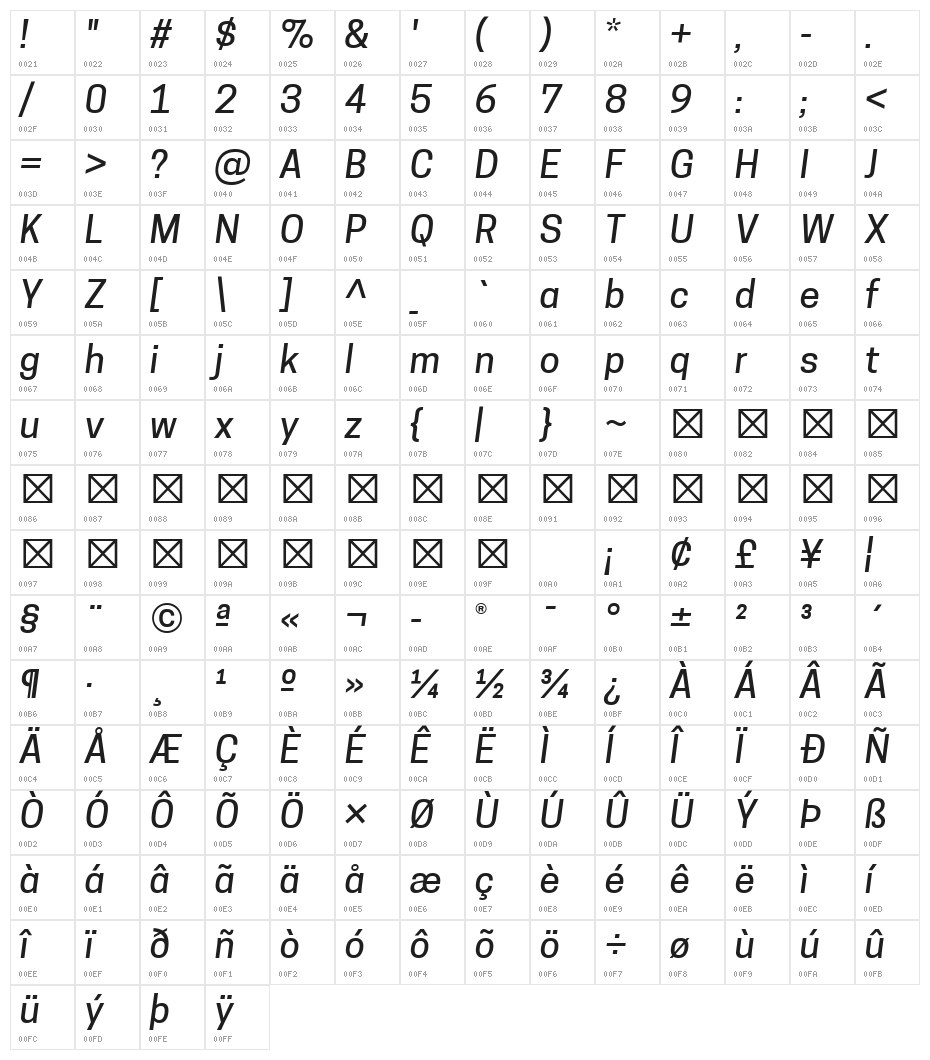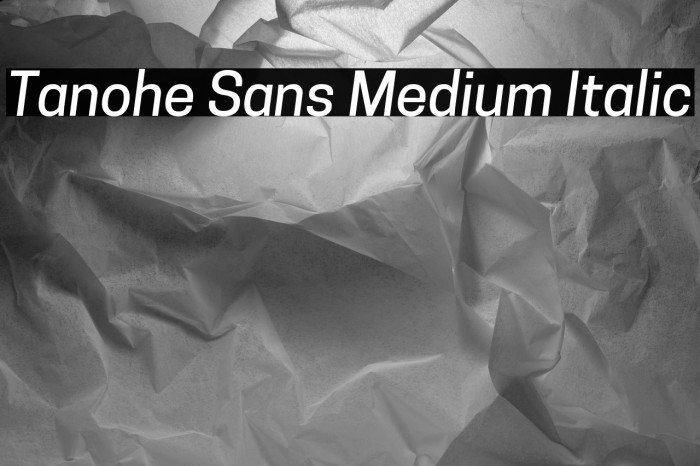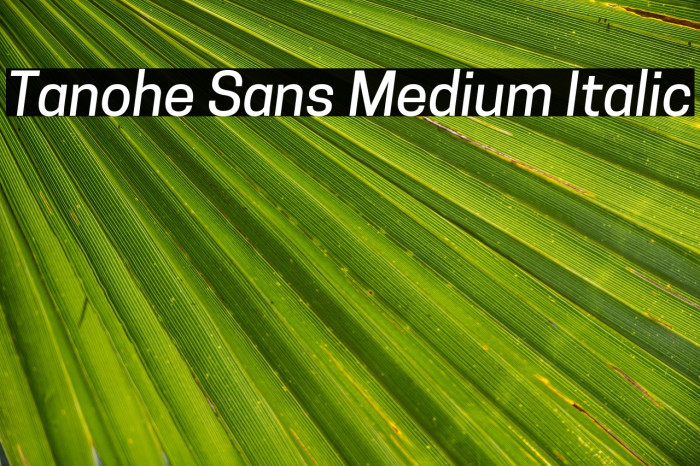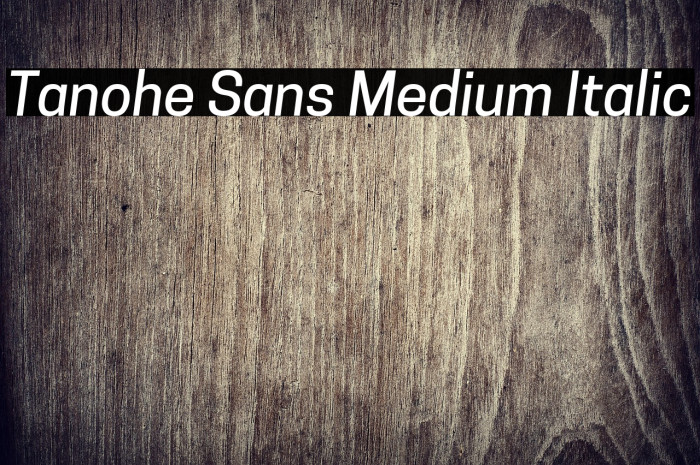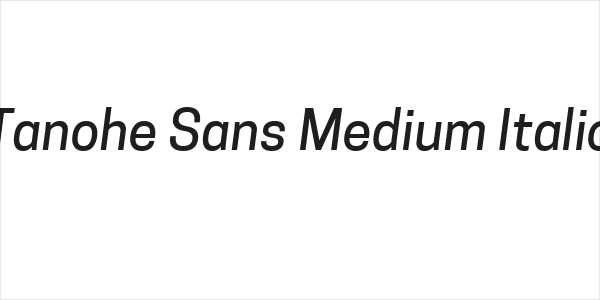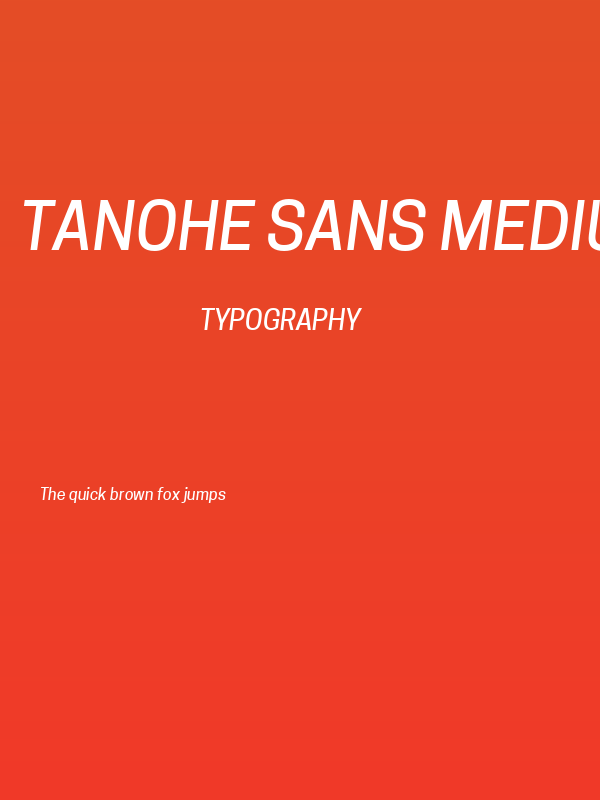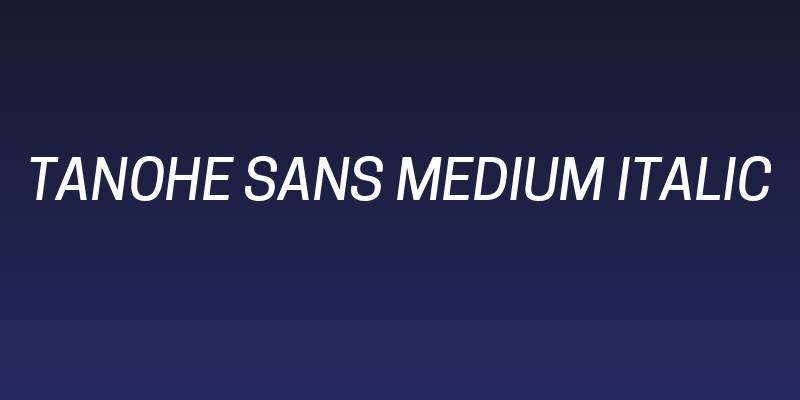
Tanohe Sans Medium Italic Font
Tanohe Sans Medium Italic Description
This font features a clean and modern sans-serif style with a medium weight and italic slant. The characters are well-balanced, offering a harmonious appearance that is both professional and approachable. The uppercase and lowercase letters maintain a consistent design, with smooth curves and straight lines that enhance readability. The numerals are clear and distinct, making them suitable for various applications. Special characters are included, providing versatility for different contexts. The overall design is sleek and contemporary, making it ideal for digital and print media.
| Proposed Projects | Ideal for branding, advertising, digital content, and editorial design. |